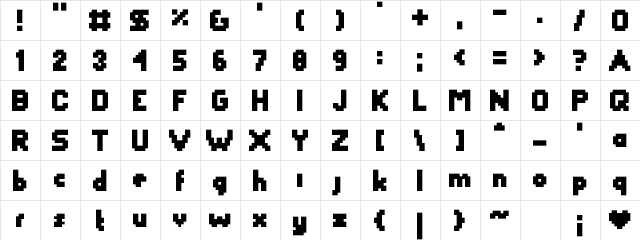
YetBumbler Medium Font Preview
YetBumbler Medium
YetBumbler Medium Font Details
Design Context for YetBumbler Typeface
YetBumbler is a composed and adaptable typeface that performs quietly and consistently across a wide range of design contexts.
Pro Tip: Pair YetBumbler with a font of contrasting weight or personality to build a more expressive typographic hierarchy.